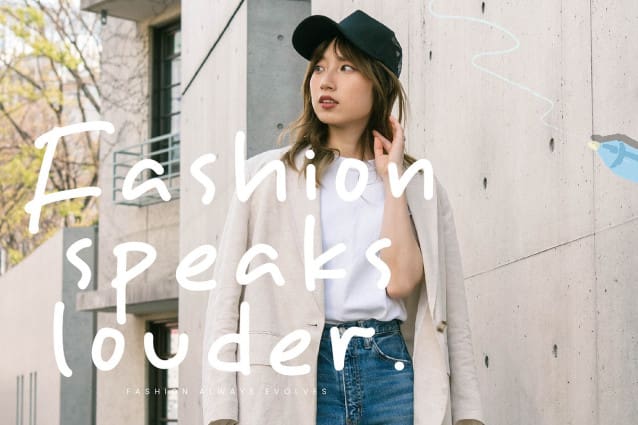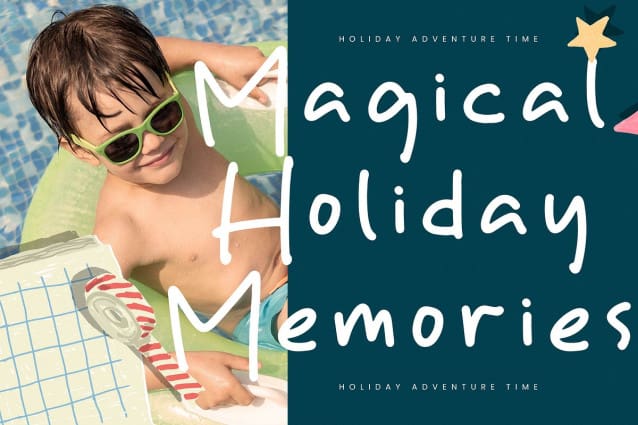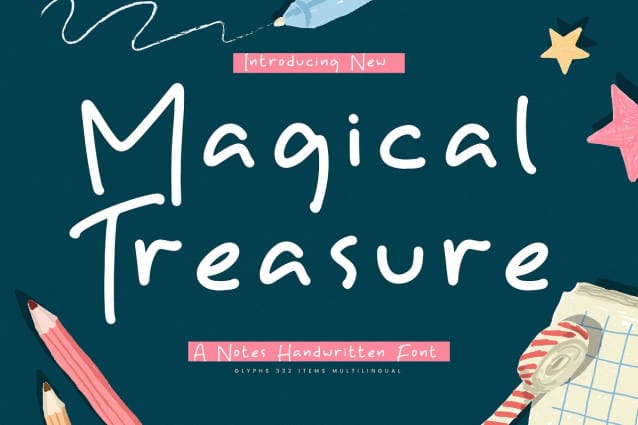
Magical Treasure Font
Magical Treasure – A Notes Handwritten Font, from Integritype Studio, perfect for any project like: logos, branding projects, homewares designs, product packaging, mugs, quotes, posters, shopping bags, t-shirts, covers books, business cards, invitation cards, greeting cards, labels, photography, watermarks, special events and all your other luxury projects that require a premium taste.